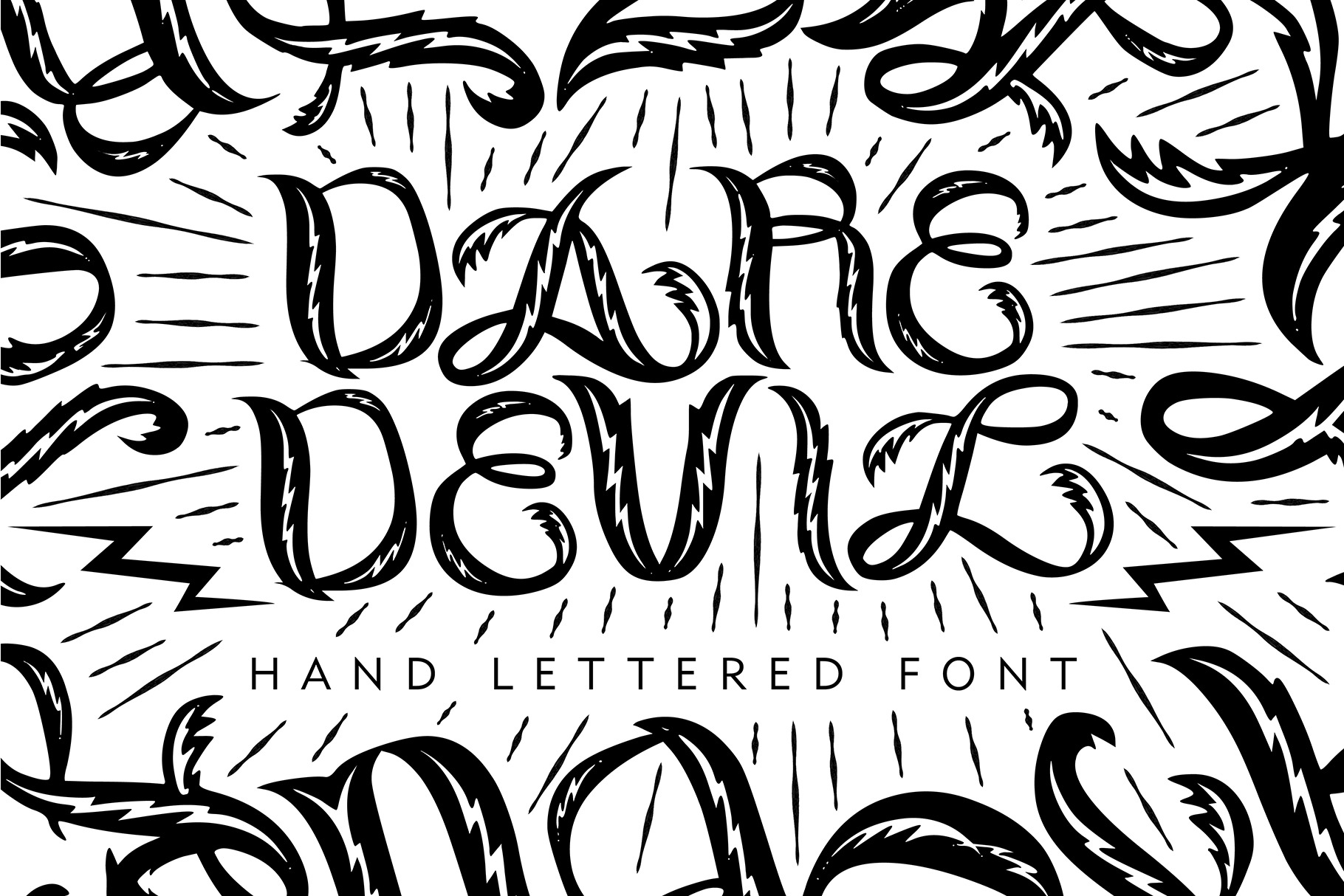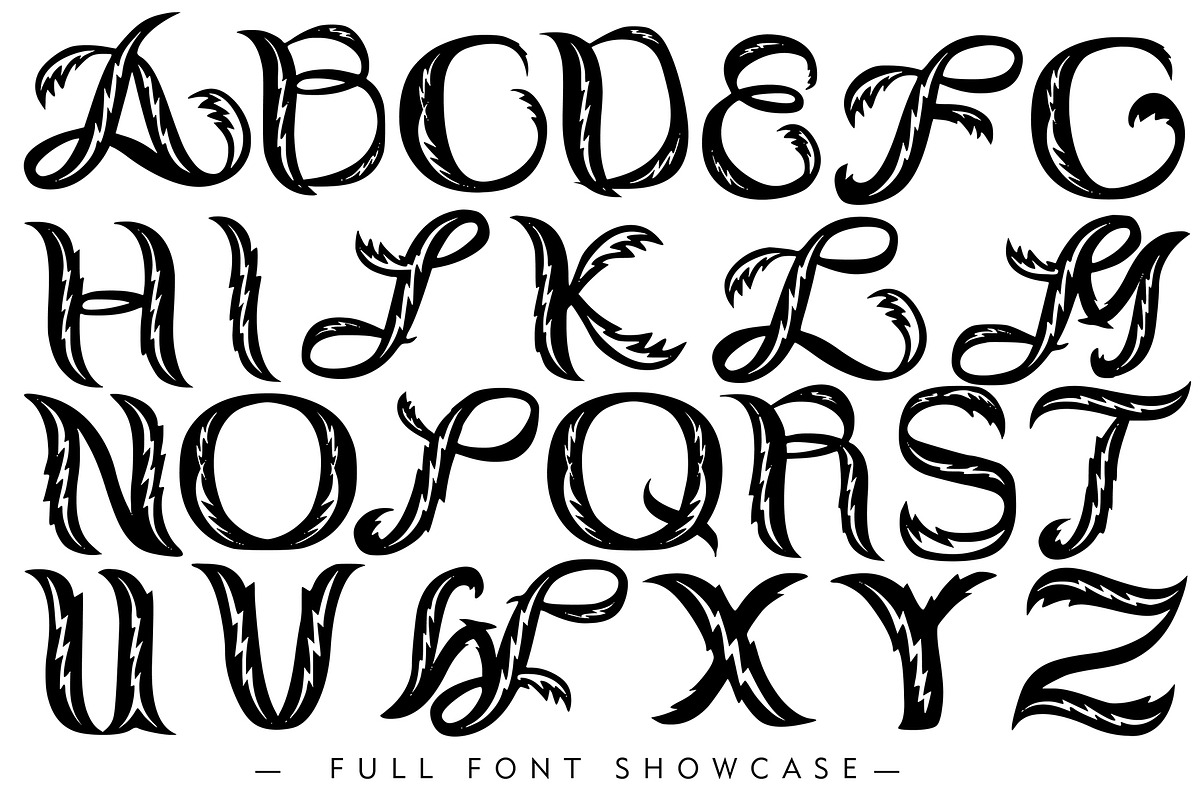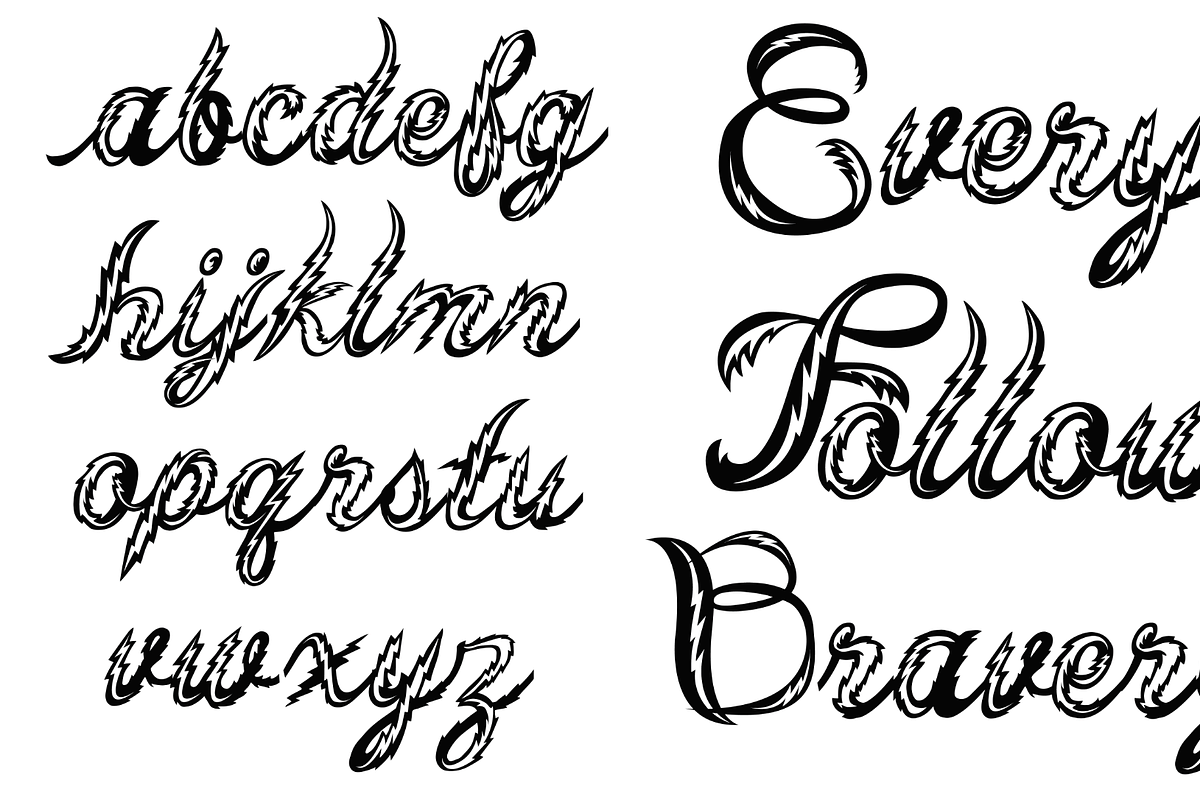
Dare Devil Hand Drawn Font
This font was inspired by my 5 year old son and his dare devilish ways. This font lends itself nicely to tattoos, Halloween or any place you want a hand drawn feel with some looseness and playfulness, but still want some masculinity. The lightening bolt details give it an edgy feel and quirky nature make this font so funky. Embrace the imperfections, AI can't make them.